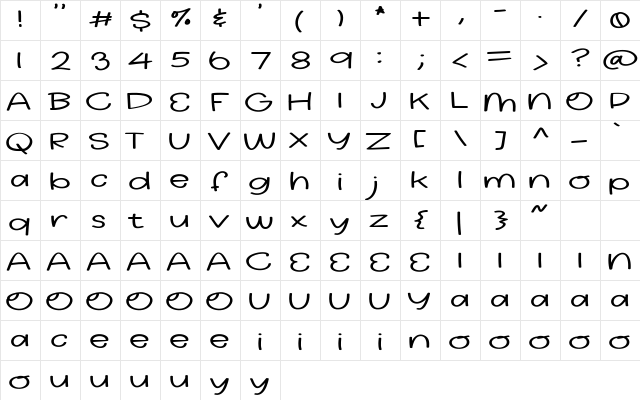
FBMightySpiky Regular
Design Context for FBMightySpiky Typeface
FBMightySpiky is a composed and adaptable typeface that performs quietly and consistently across a wide range of design contexts.